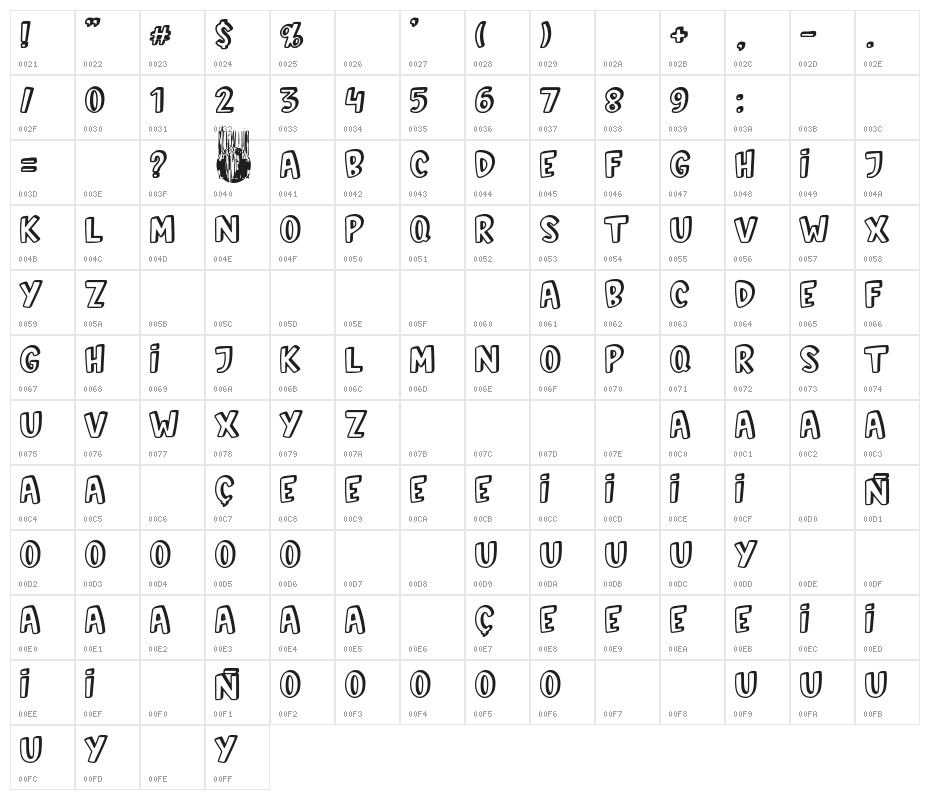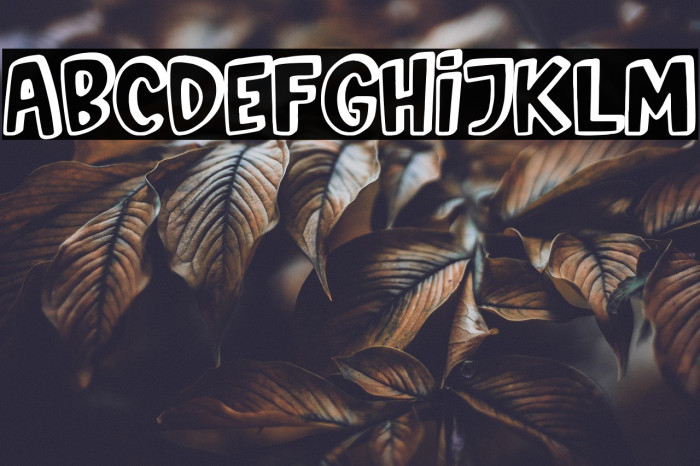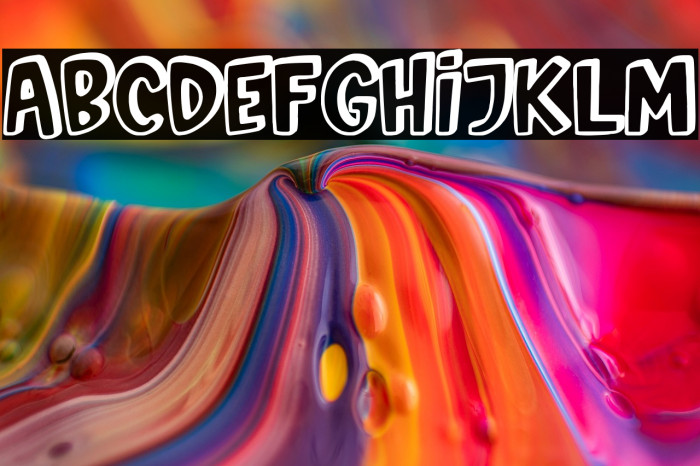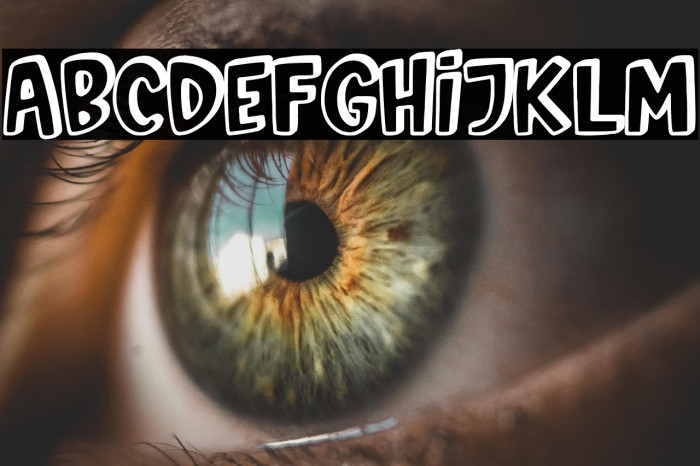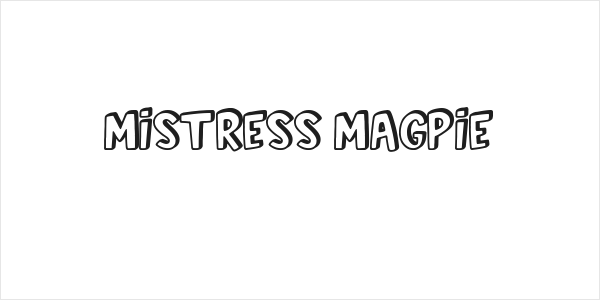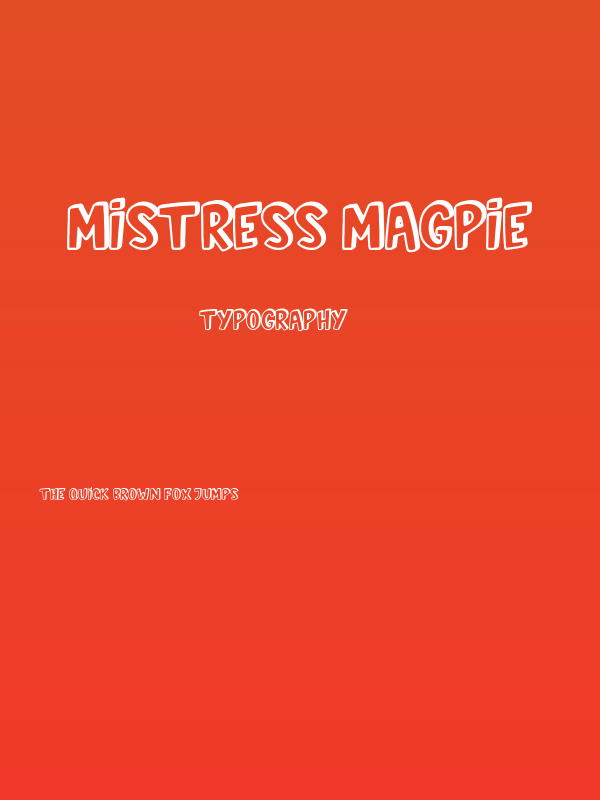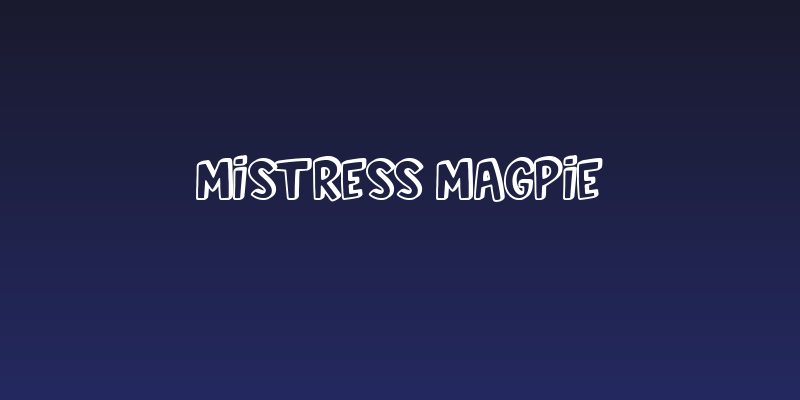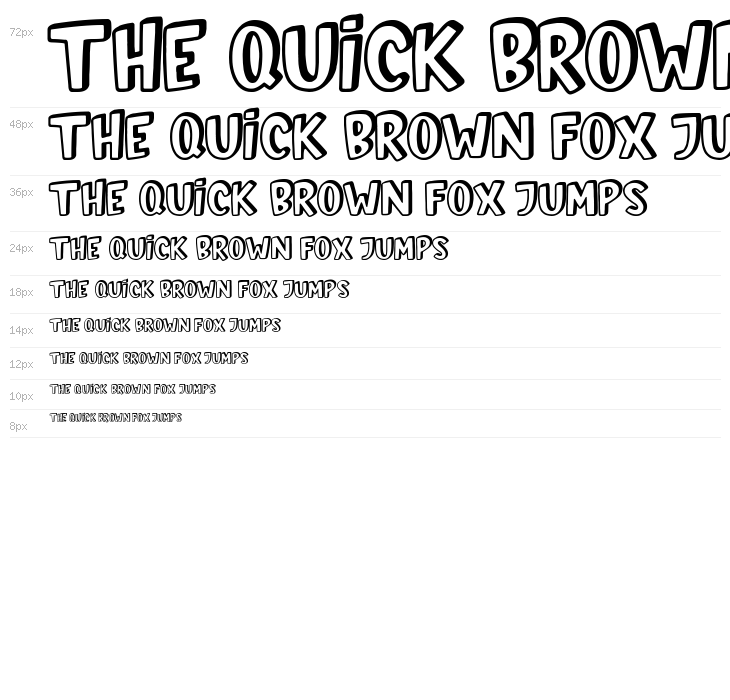
Mistress Magpie Font
Mistress Magpie Description
This font features a playful and bold style with thick, rounded edges and a hand-drawn appearance. The characters are uniformly bold, with a consistent stroke width that gives the font a cohesive look. The letters are slightly irregular, adding to the whimsical and informal feel. The numbers and special characters maintain the same playful aesthetic, making it suitable for creative and fun projects. The font's design is approachable and friendly, with a cartoon-like quality that stands out in any design.
| Proposed Projects | Ideal for children's books, comic strips, playful branding, and party invitations. |